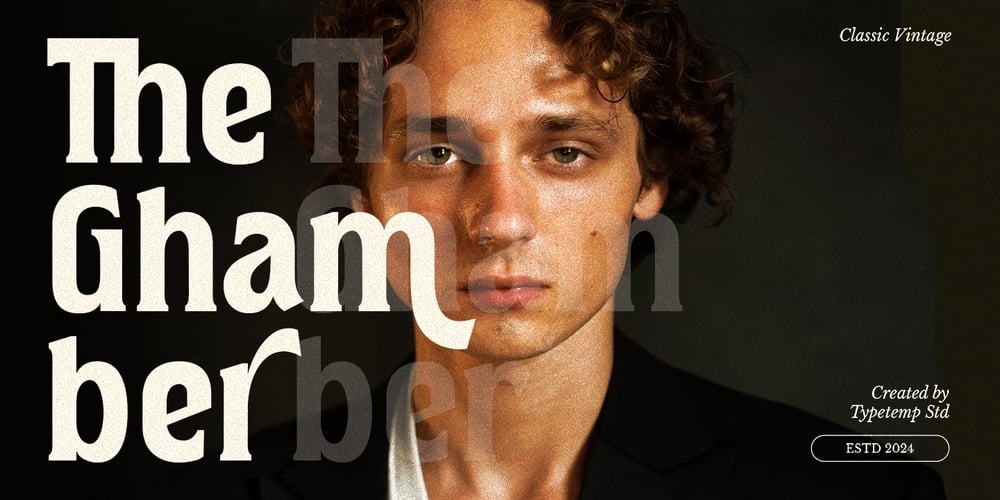
The Ghamber Italic Font Family was designed by Haris Purnama Putra, Egi Ahmad Mufid and published by Typetemp Studio. The Ghamber Italic contains 2 styles and family package options. The Ghamber Classic Vintage Inspire some retro vintage classic come with alternatives and ligatures, helps to create stunning logos, quotes, posts, blog posts. branding projects, magazine imagery, wedding invitations, and much more.